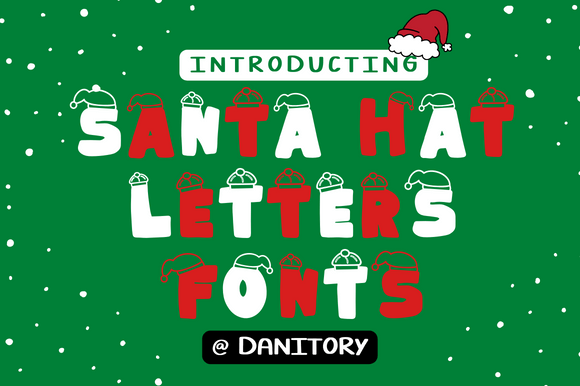
Step into the world of Santa Hat Letters Font, where Christmas magic meets digital creativity! A delightful all-caps decorative font designed for the jolly season, Santa Hat Letters is so much more than just a font. It's an invitation to embrace the festive spirit and add a touch of Christmas cheer to all your creative endeavors.
Immerse yourself in the magic of the season with this playful and whimsical font. Let it be your guiding light as you craft enchanting invitations, heartwarming cards, and eye-catching social media posts. Santa Hat Letters Font is the perfect partner for your festive designs, transforming ordinary words into captivating expressions of Christmas joy.
With its playful spirit and charming aesthetic, Santa Hat Letters Font is the ultimate choice for creating Christmas-themed designs that radiate warmth and happiness. Whether you're a seasoned designer or just starting your creative journey, this font is sure to ignite your imagination and spread Christmas cheer with every use.
So, why settle for ordinary fonts when you can sprinkle some Christmas magic into your designs? Download Santa Hat Letters Font today and embark on a creative adventure that will leave you feeling merry and bright. Let the festive season inspire you as you create designs that capture the essence of Christmas cheer.
* Designed for the Christmas season
* All-caps decorative font
* Perfect for festive designs
* Playful and whimsical style
* Ideal for invitations, cards, and social media posts
* Easy to use